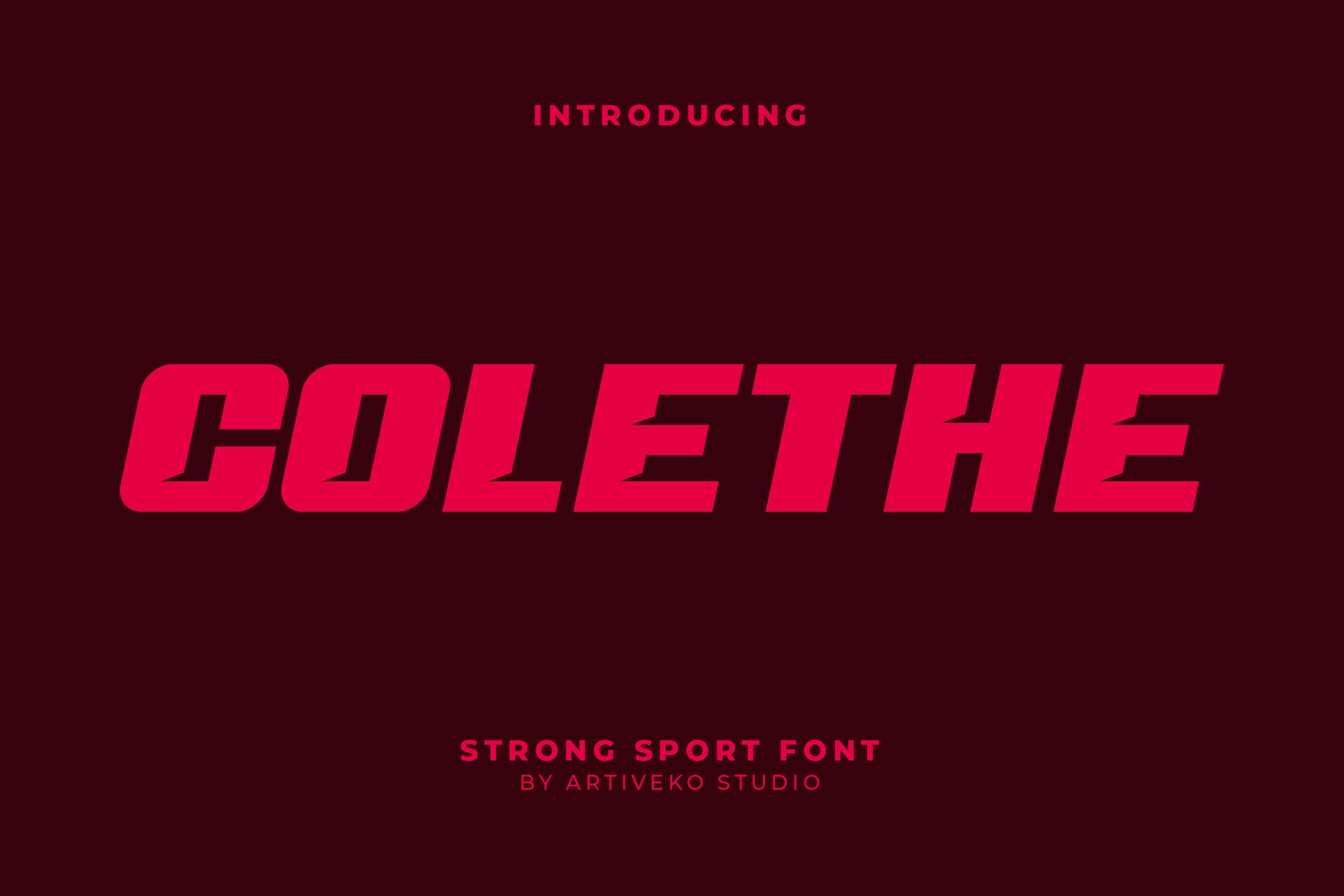
- Colethe Bold Sans Font
Colethe is a powerful sans serif font designed to make a bold visual statement. Featuring thick strokes, sharp edges, and a confident geometric structure, Colethe delivers impact and clarity, making it perfect for logos, headlines, posters, sports graphics, packaging, and modern branding projects.
Its strong and assertive letterforms ensure maximum readability while maintaining a stylish and contemporary aesthetic. Whether you’re crafting a high-energy campaign, a dynamic logo, or bold editorial titles, Colethe brings unmatched strength and precision to your typography.
The font includes uppercase and lowercase letters, numerals, punctuation, multilingual support, and stylistic alternates for flexible design options.
Stand out from the crowd with Colethe — the bold, strong sans serif font that defines power and modern sophistication in every letter.